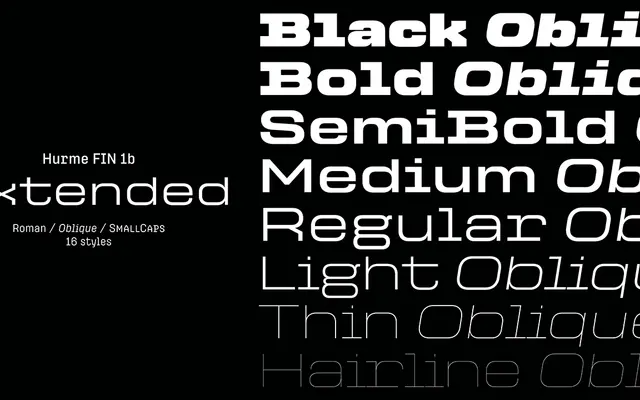
Hurme FIN 1b Extended
The extended-width cut of a monolinear sans family that blends grotesque and monospace influences through swappable default character sets.
Hurme FIN 1b Extended sits within a 144-style system spanning nine widths and eight weights, from Hairline to Black, each with a matching oblique. The 1b designation marks angular, monospace-inspired letterforms with slab-serif details as the default, distinguishing it from the more conventional FIN 1a; both character sets are accessible in either variant via OpenType features. Purchasing FIN 1b includes the corresponding weights of FIN 1a at no additional cost.
A monolinear sans-serif with horizontal stroke terminals and a large design space across widths and weights. The 1b variant introduces angular, monospace-inspired characters with slab-serifs as defaults, positioning it between a grotesque and a monospace.